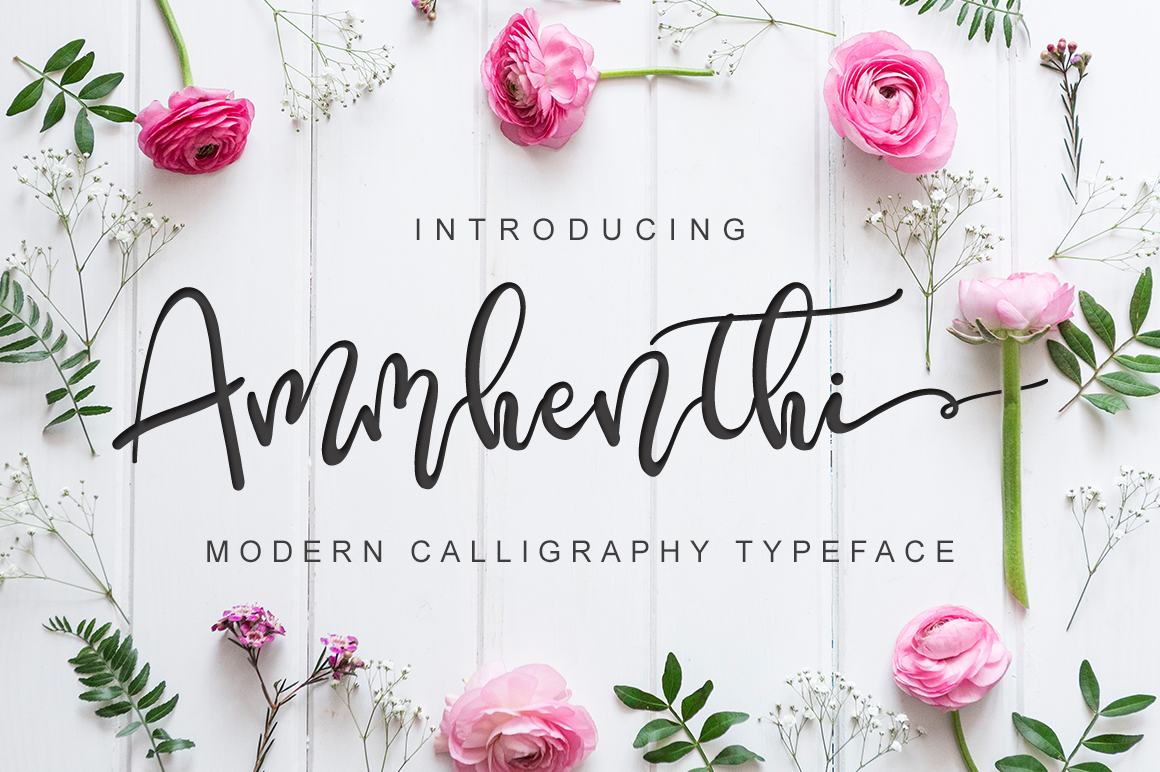
The Ammenthi Font: A Modern Script Beauty
I’ll never forget the design project that led me to discover the stunning Ammenthi font. I was working on a branding project for a trendy boutique hotel, and I was struggling to find the perfect script font to capture their elegant yet modern vibe. That’s when I stumbled upon Ammenthi, and it instantly became my go-to choice. In this article, I’ll share my experience with Ammenthi, its features, and how to make the most of it in your designs.
An Honest Review of Ammenthi Font
What I Love About Ammenthi ✨
- 💫 Modern and elegant: Ammenthi boasts a sleek, contemporary style that’s perfect for high-end branding, packaging, and editorial designs.
- ✅ Highly legible: Despite its script nature, Ammenthi is remarkably easy to read, even at smaller font sizes.
- 🎨 Versatile: This font is suitable for a wide range of design applications, from logos and titles to body text and quotes.
- 🔍 Extensive glyph set: Ammenthi comes with a rich collection of glyphs, including ligatures, stylistic alternates, and swashes.
- ⚠️ Limited use in body text: While Ammenthi is legible, its script nature makes it less suitable for long blocks of body text.
- 🤔 Some characters may require manual kerning: Depending on the specific use case, you might need to adjust kerning for certain character combinations.
The Story Behind Ammenthi Font
Ammenthi’s story begins with its designer, who aimed to create a modern script font that would capture the elegance and sophistication of luxury brands. Inspired by classic calligraphy and modern typography, Ammenthi was crafted to be both beautiful and functional. While the designer’s exact inspiration might be unknown, it’s clear that Ammenthi has become a beloved font among designers and crafters.
| What is Ammenthi font best used for? | Ammenthi font is ideal for high-end branding, packaging design, editorial design, and titles. Its modern and elegant style makes it perfect for luxury brands and creative projects. |
| Is Ammenthi font suitable for body text? | While Ammenthi is legible, its script nature makes it less suitable for long blocks of body text. It’s best used for titles, headings, and short paragraphs. |
| Does Ammenthi font come with OpenType features? | Yes, Ammenthi font comes with a range of OpenType features, including ligatures, stylistic alternates, and swashes. These features can be accessed through compatible design software, such as Adobe Creative Cloud applications. |